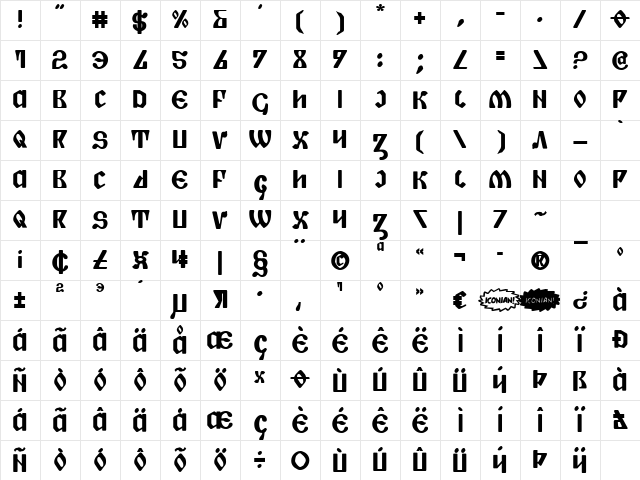
Piper Pie Bold Bold
Design Context for Piper Pie Bold
Piper Pie Bold is a composed and adaptable typeface that performs quietly and consistently across a wide range of design contexts. Its bold stroke weight gives it real presence on the page.